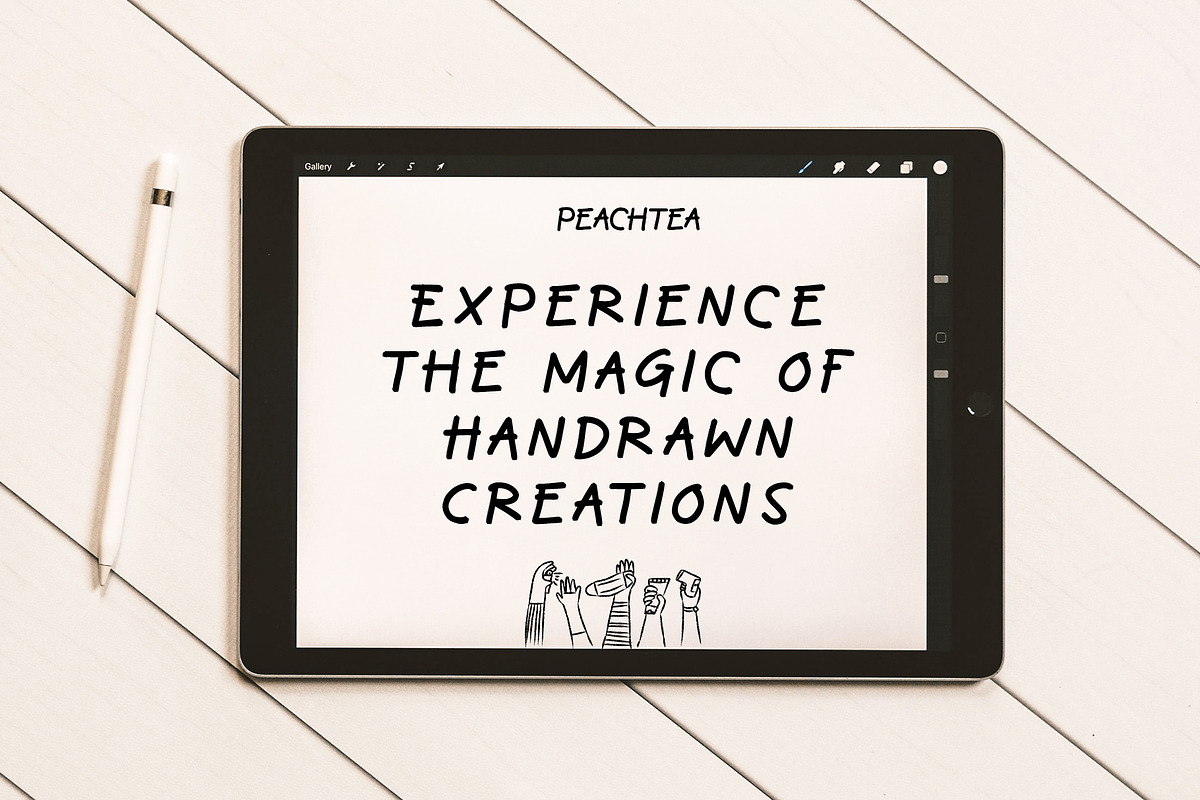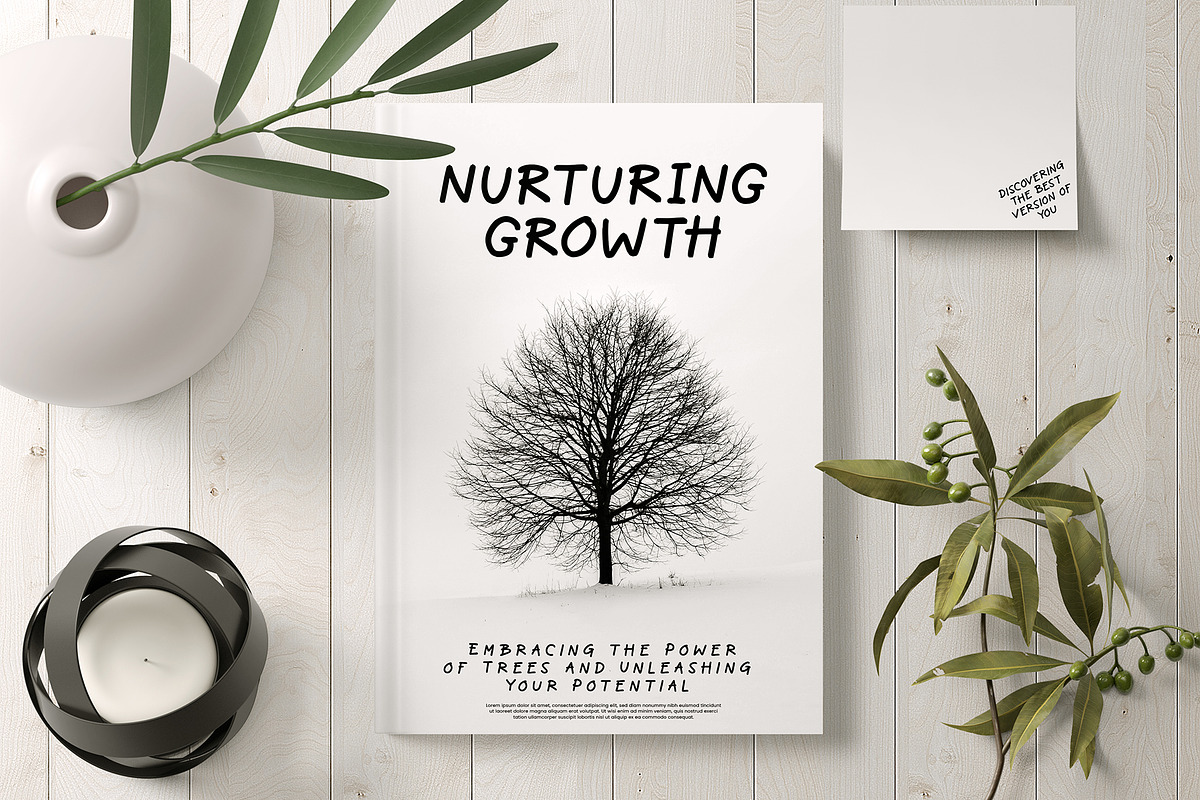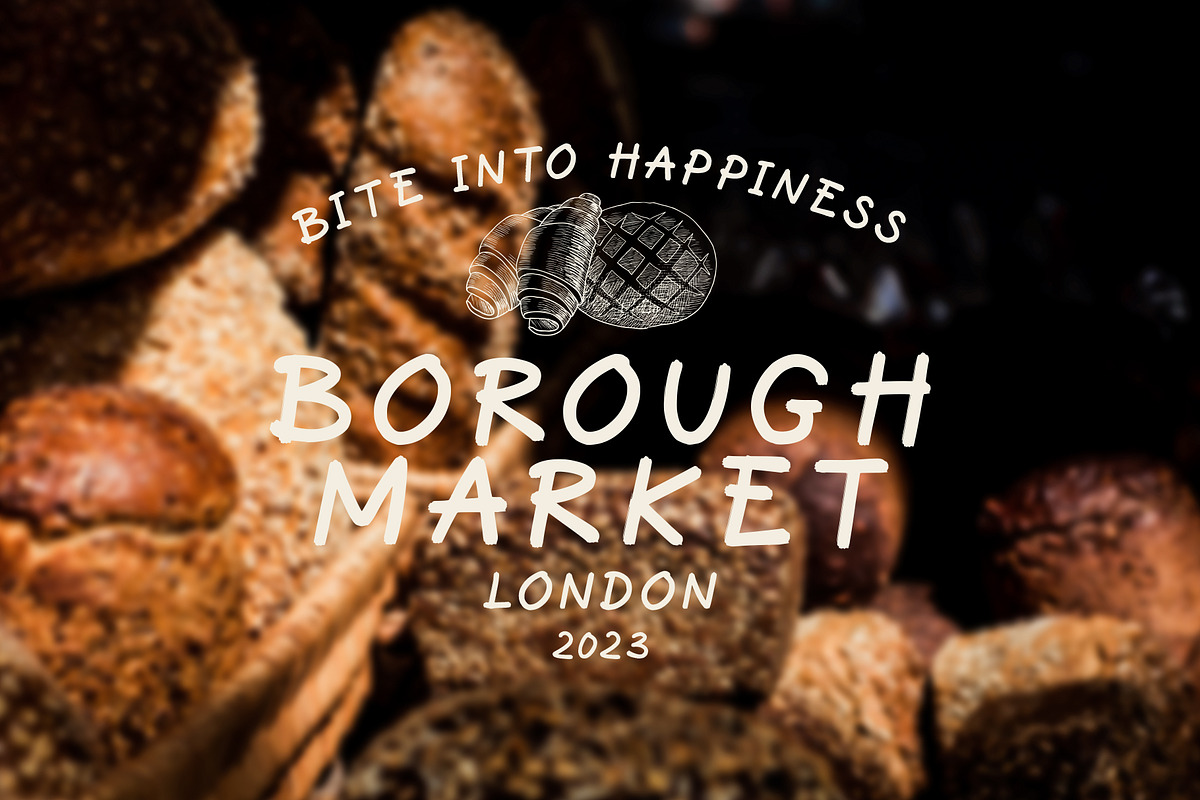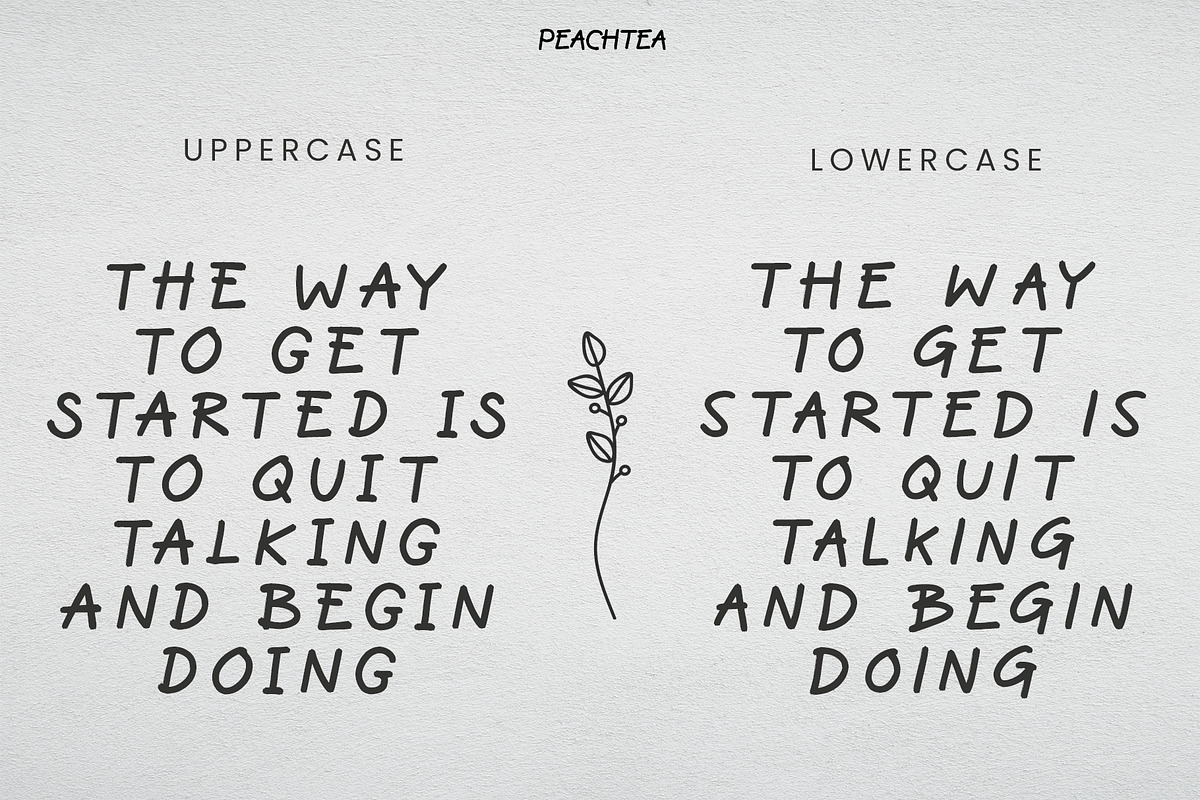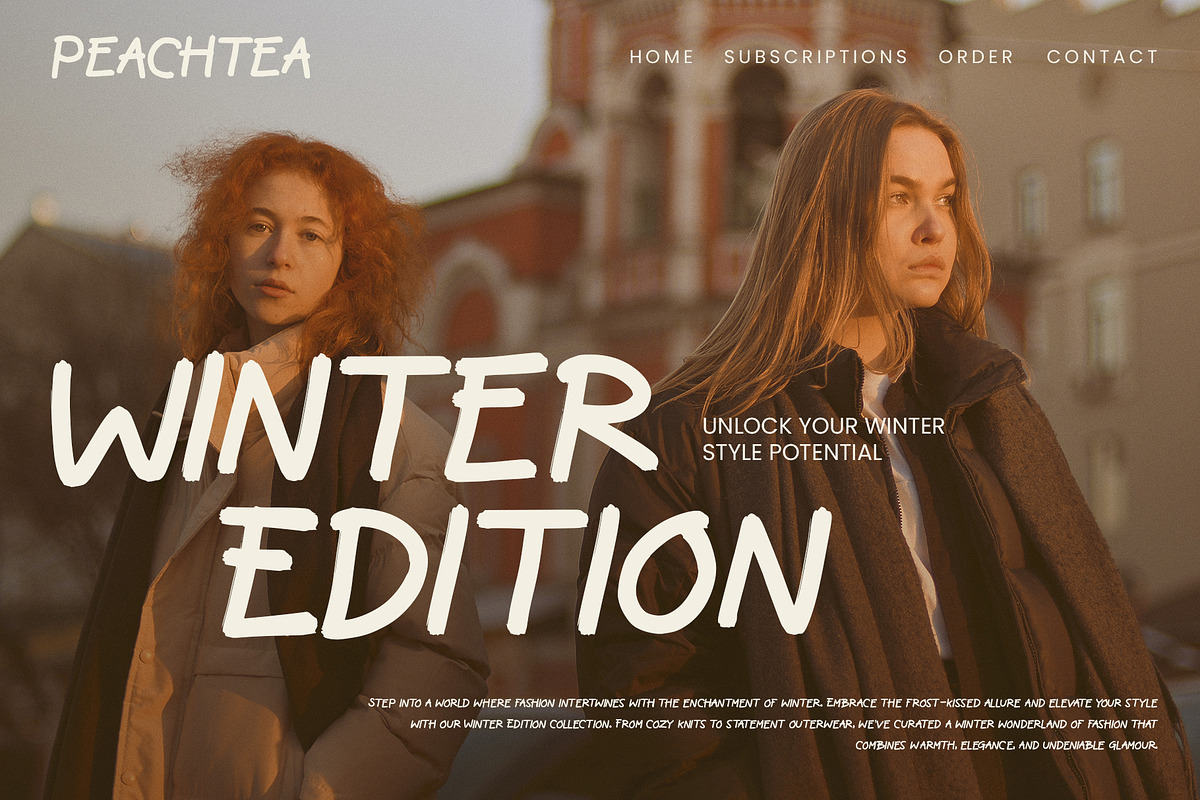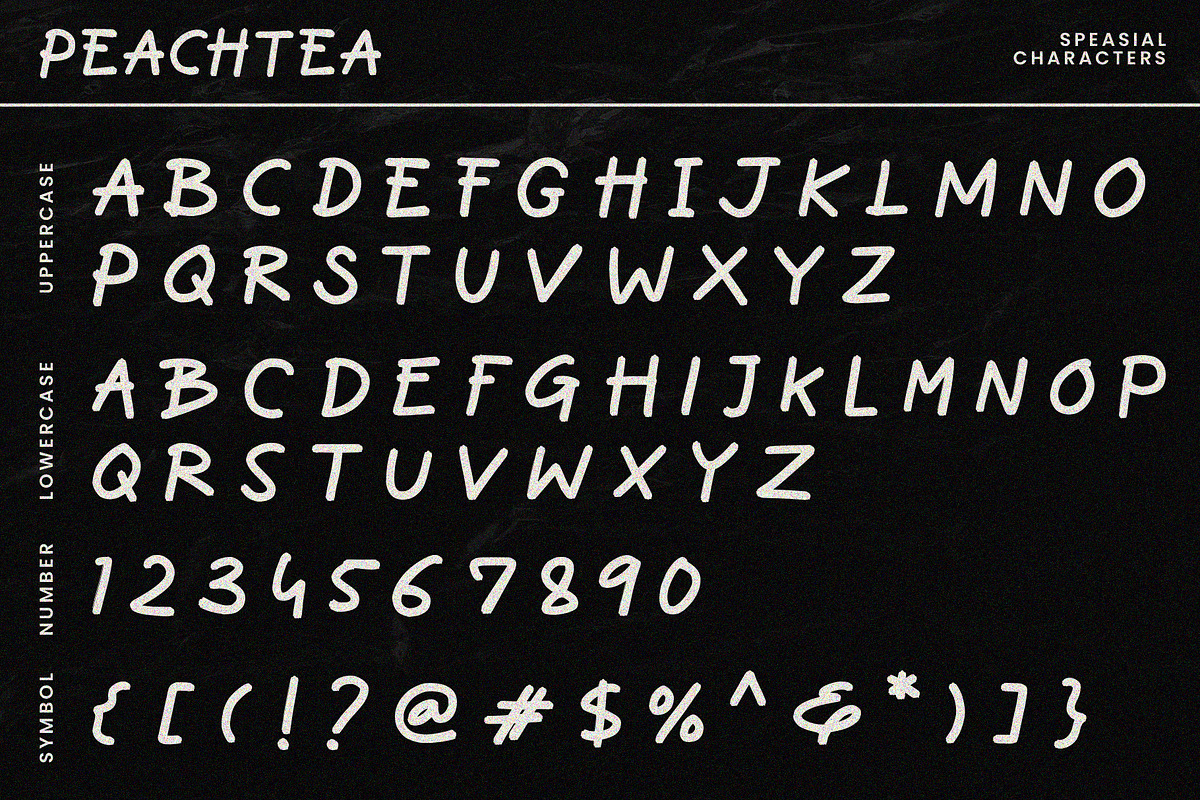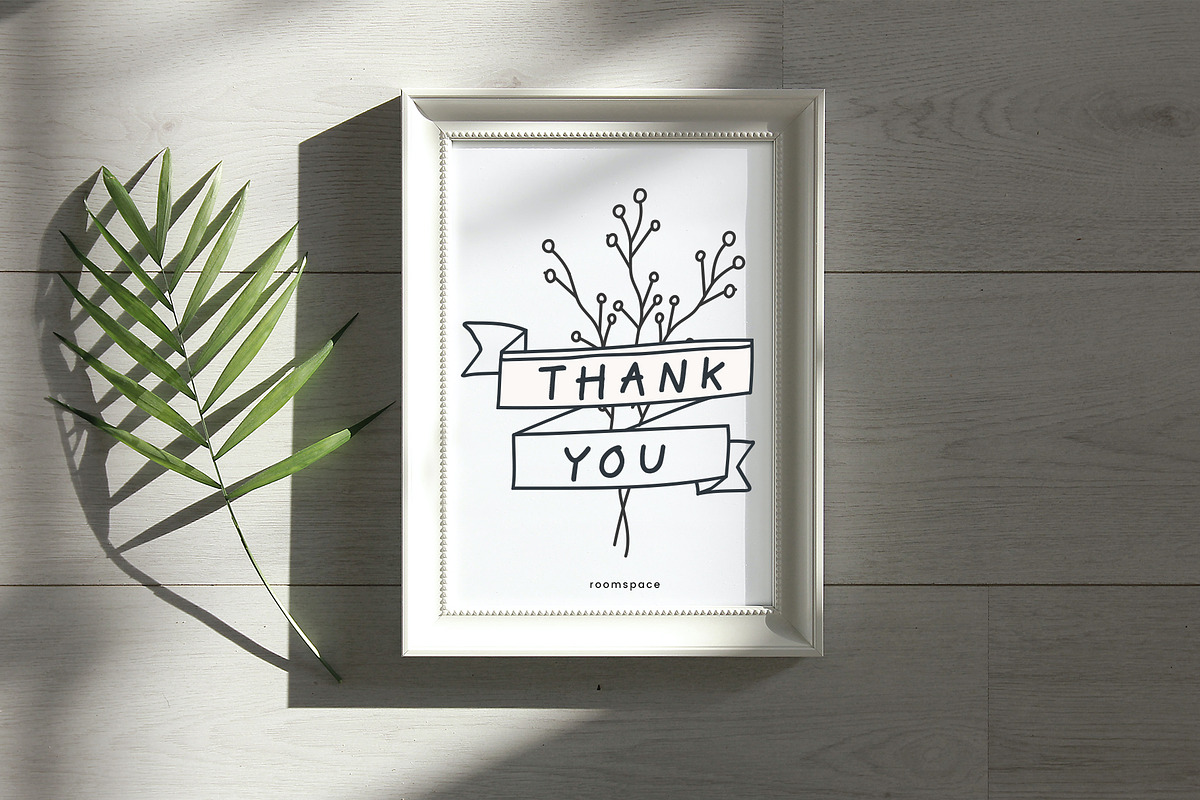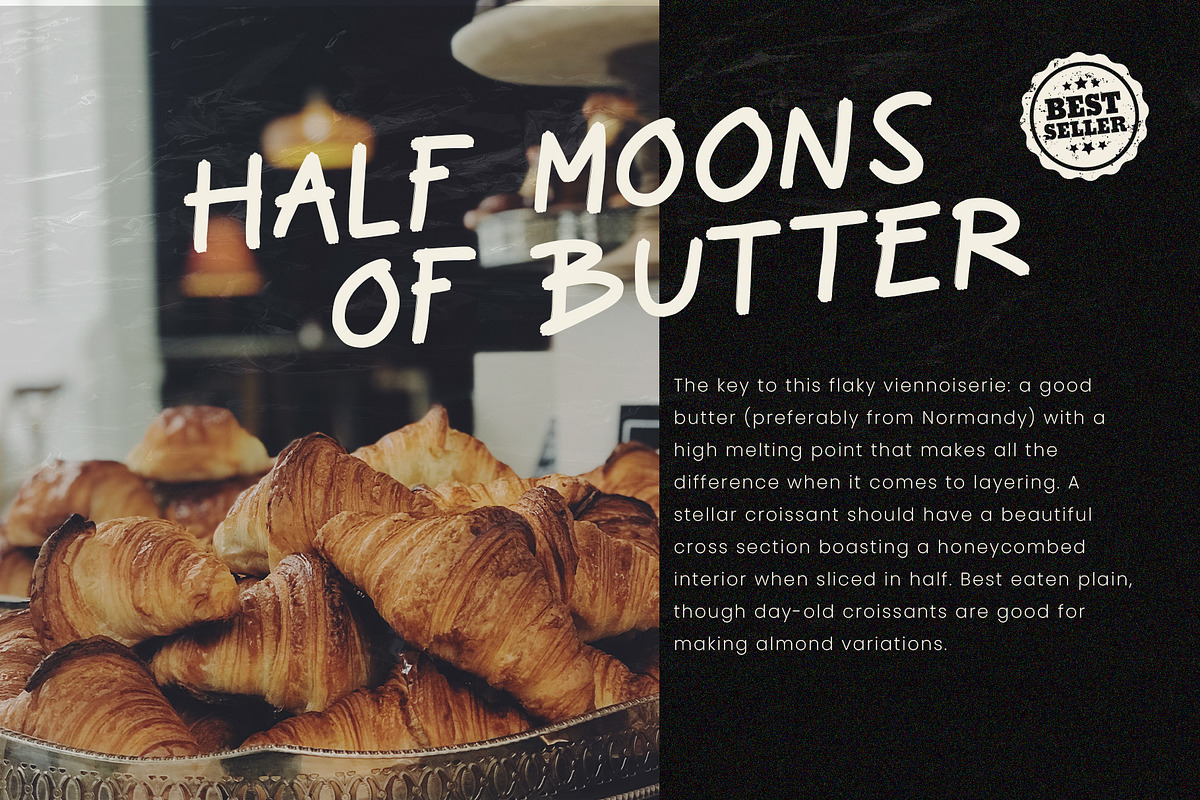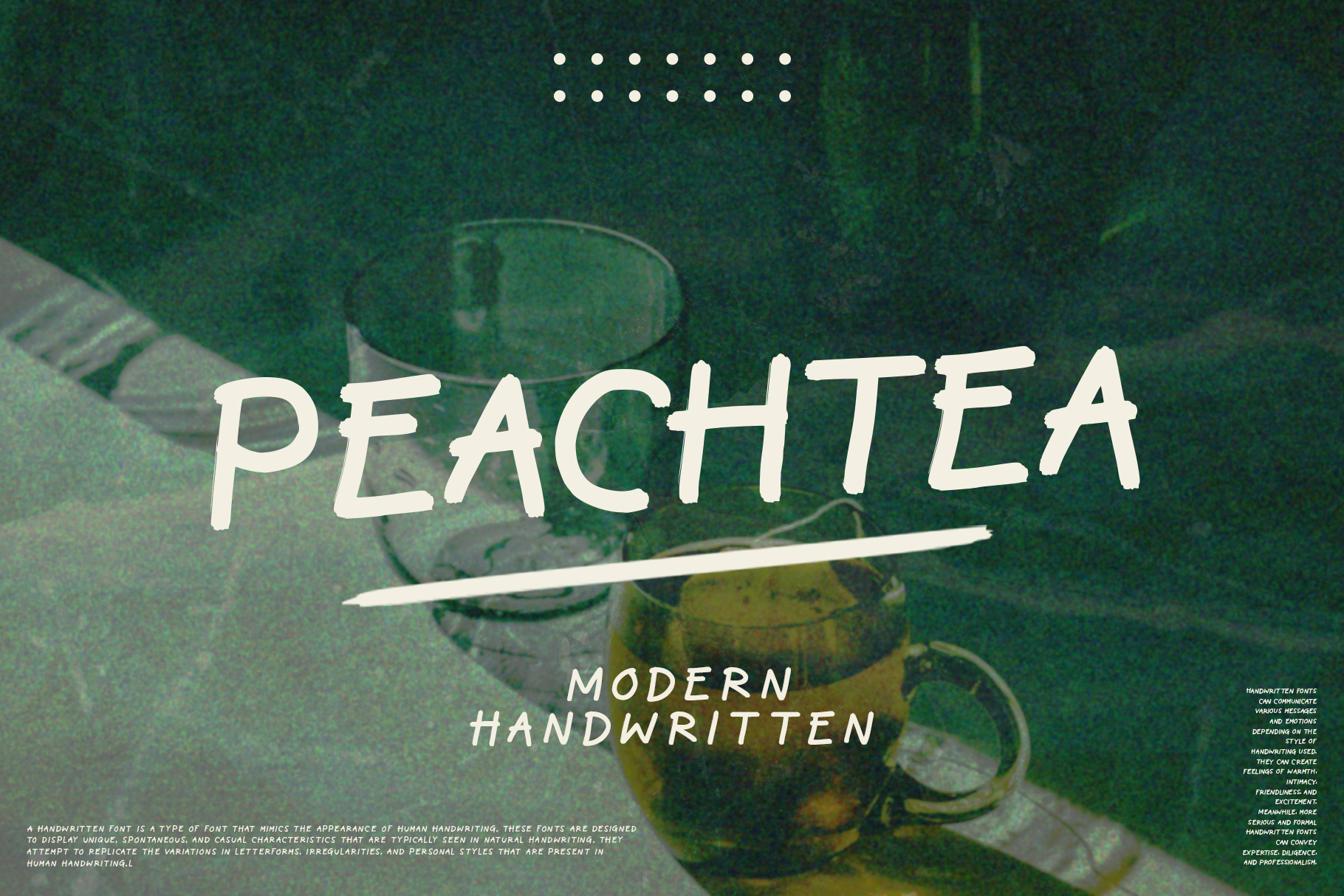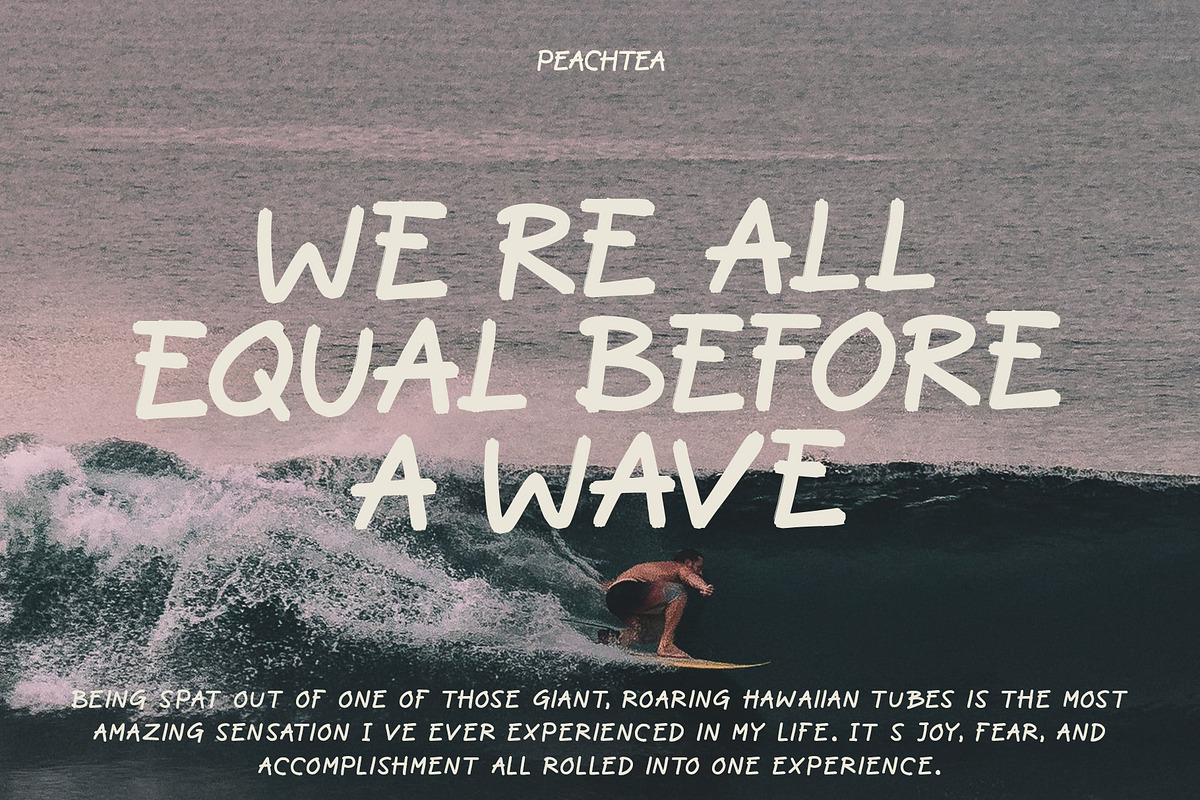
Peachtea Modern Handwritten Font
Peachtea is a font crafted in a modern handwritten style, using a marker pen as its inspiration. It features uppercase letters exclusively, with each letter having a distinct design from its lowercase counterpart.
Peachtea has a casual yet elegant and captivating appeal. The uppercase letters showcase the uniqueness and creativity in the letterforms, while the lowercase letters provide interesting variations, enriching the overall visual aesthetic of the font.
Each uppercase letter in Peachtea possesses a distinctive and authentic handwritten charm. The lines, curves, and details are carefully crafted to create a natural and genuine appearance. The soft letterforms, blending curves with precise angles, lend a modern and fresh impression.
Peachtea offers a diverse range of writing styles inspired by marker pen techniques. The ink effects on each letter provide a realistic touch and add depth to the font. This creates a bold and unpretentious handwriting effect, striking a balance between sophistication and cheerfulness.
The Peachtea font is well-suited for various design projects that require a personal touch and a unique style. From logo designs to greeting cards, it brings a refreshing, appealing, and easily readable look. With its distinctive letterforms, Peachtea is an excellent choice for those seeking an attention-grabbing modern handwriting alternative.